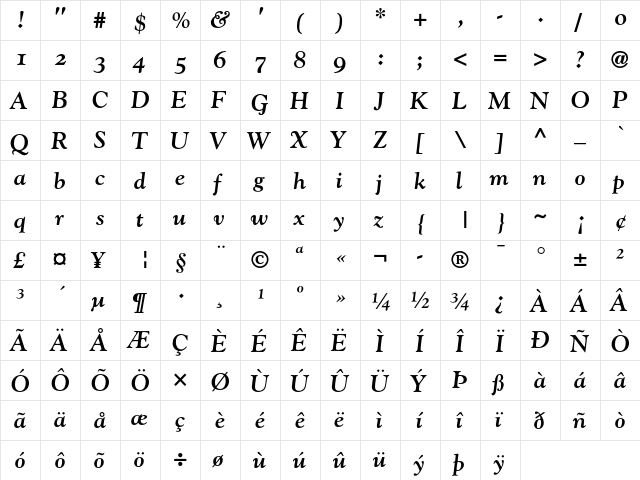
Goudy Bold Italic OsF Font Preview
Goudy Bold Italic OsF
Goudy Bold Italic OsF Font Details
Design Context for Goudy Typeface
Goudy is a composed and adaptable typeface that performs quietly and consistently across a wide range of design contexts. The dynamic lean of this cut emphasises speed and emphasis in any layout. The heavy weight commands attention and anchors typographic hierarchies.
Pro Tip: Try Goudy for annotation and caption copy alongside an upright companion — the contrast in angle creates a dynamic but ordered typographic system.